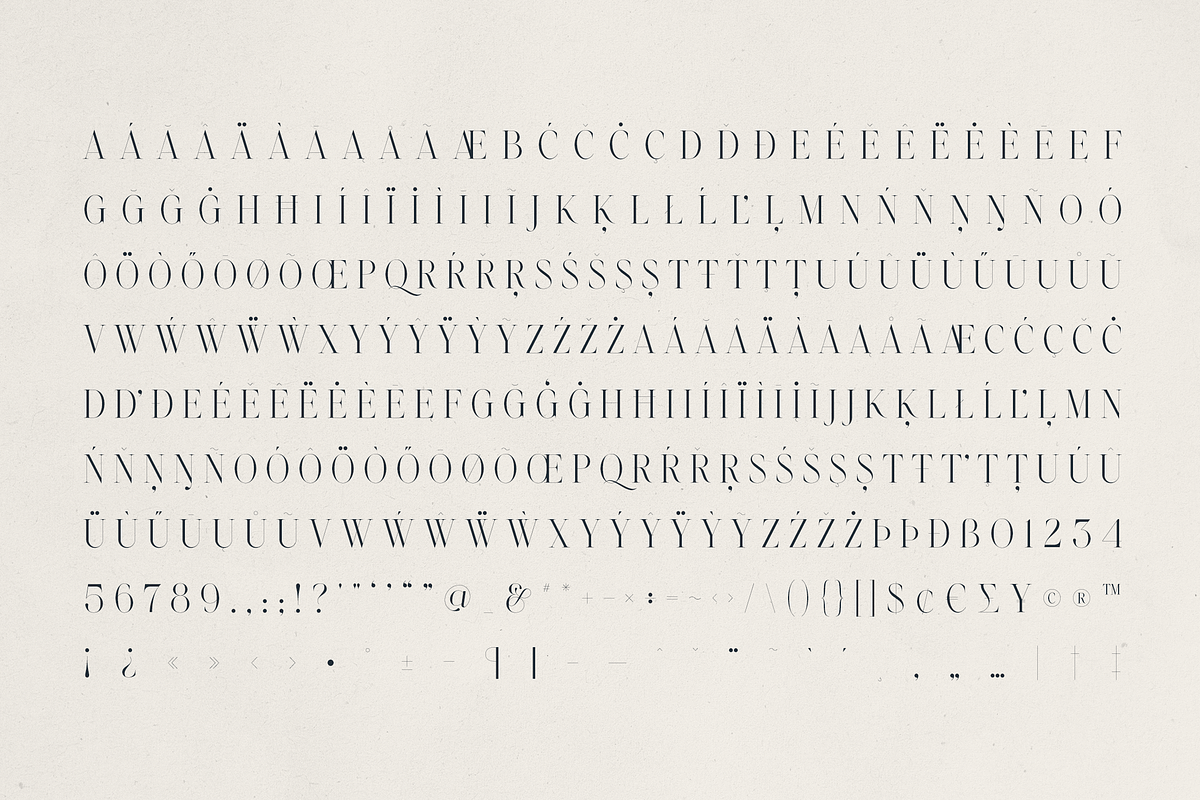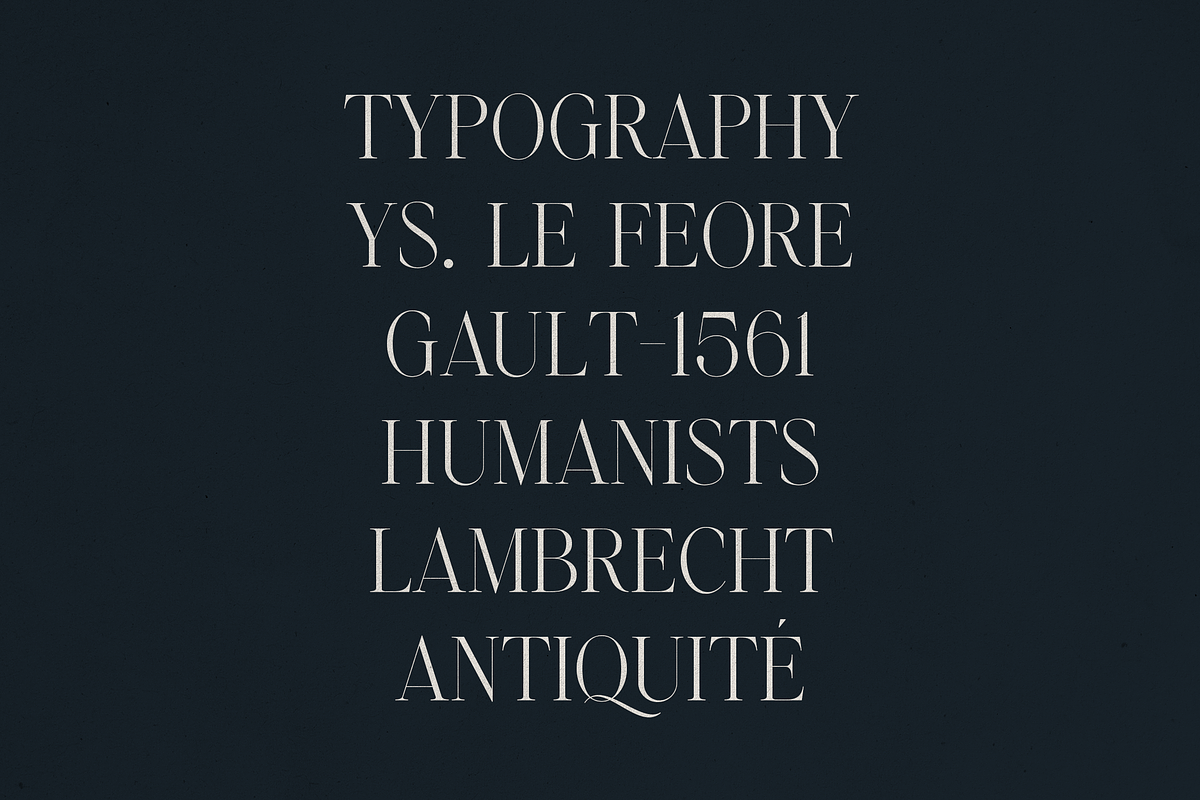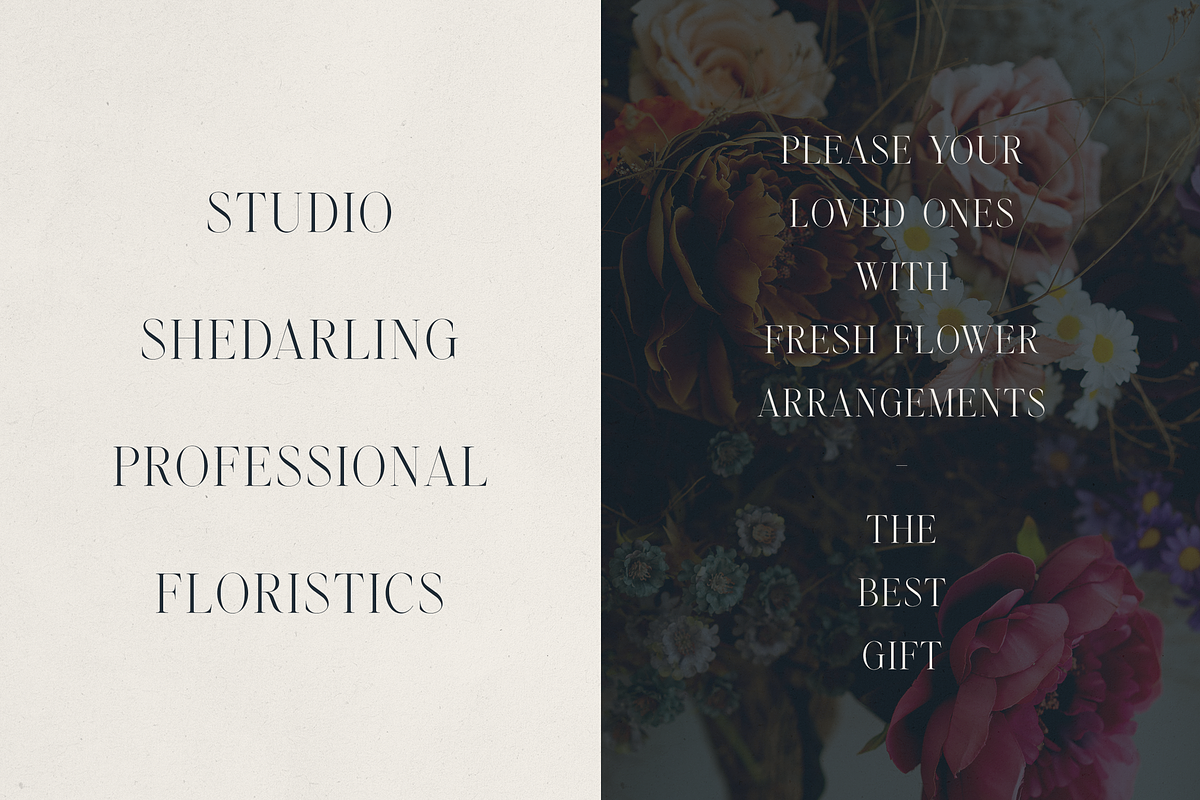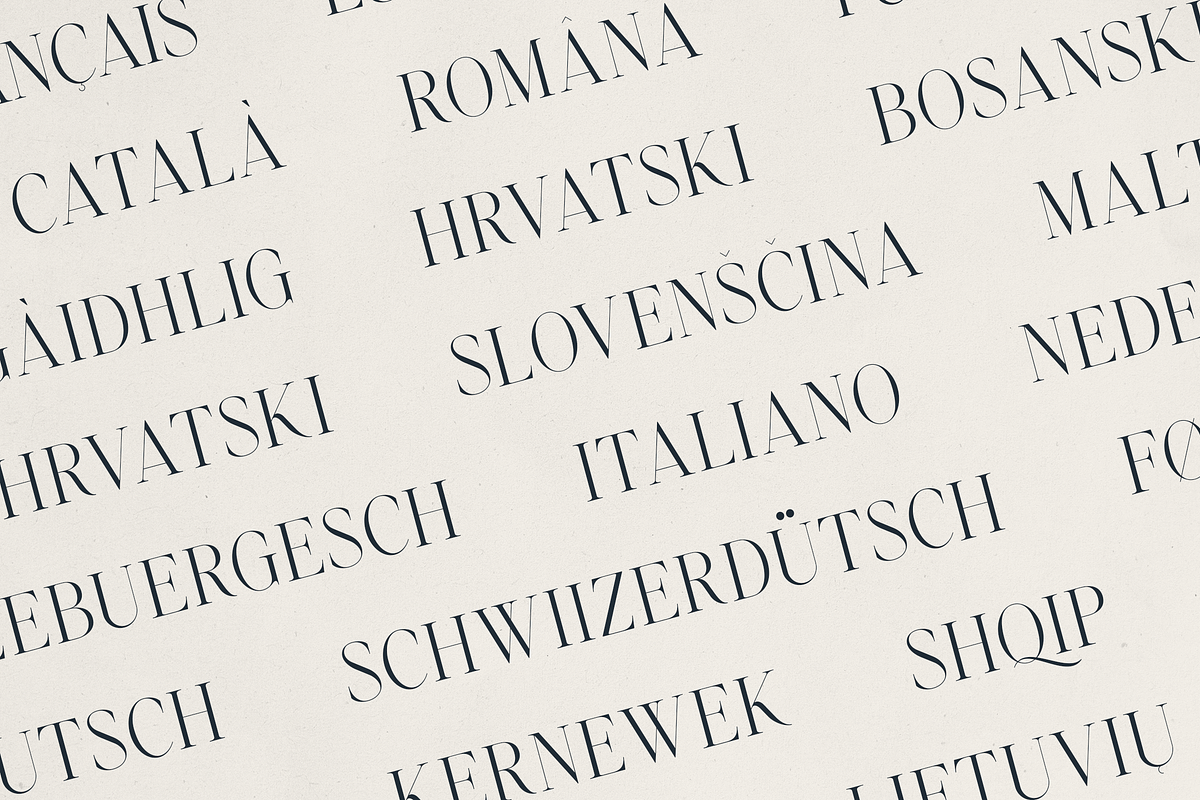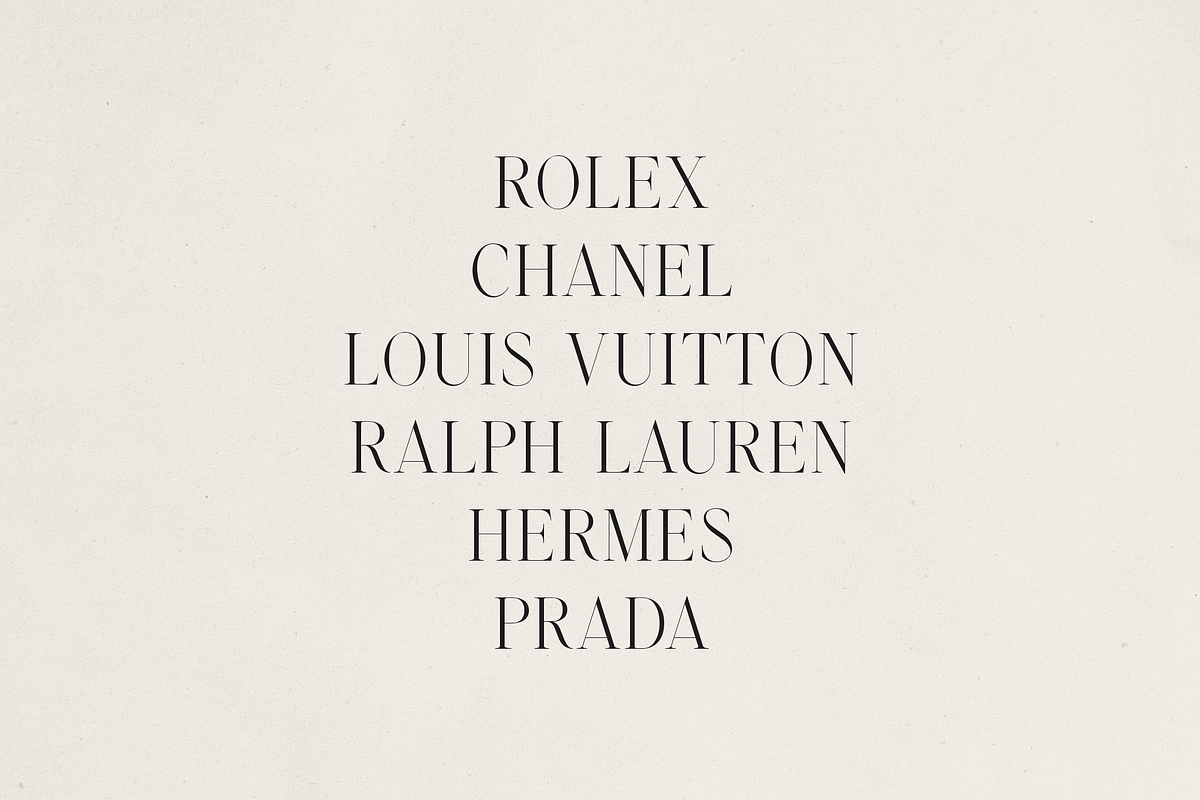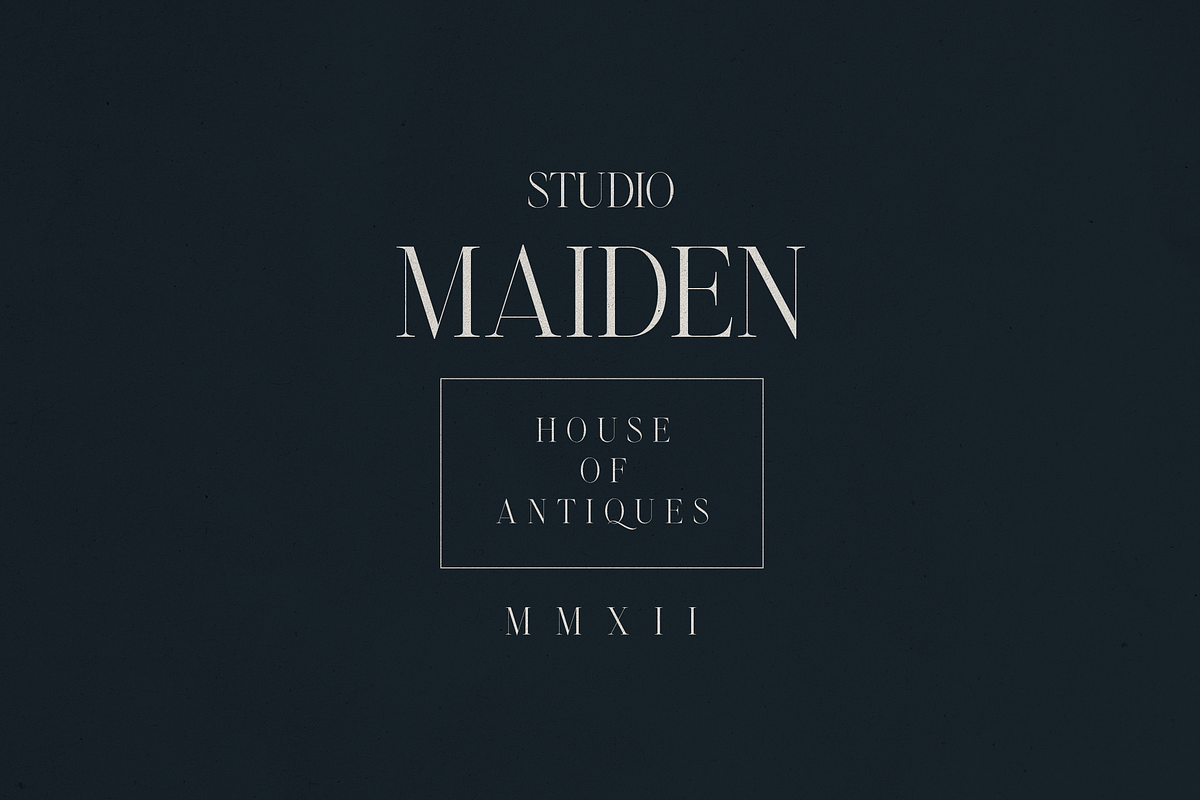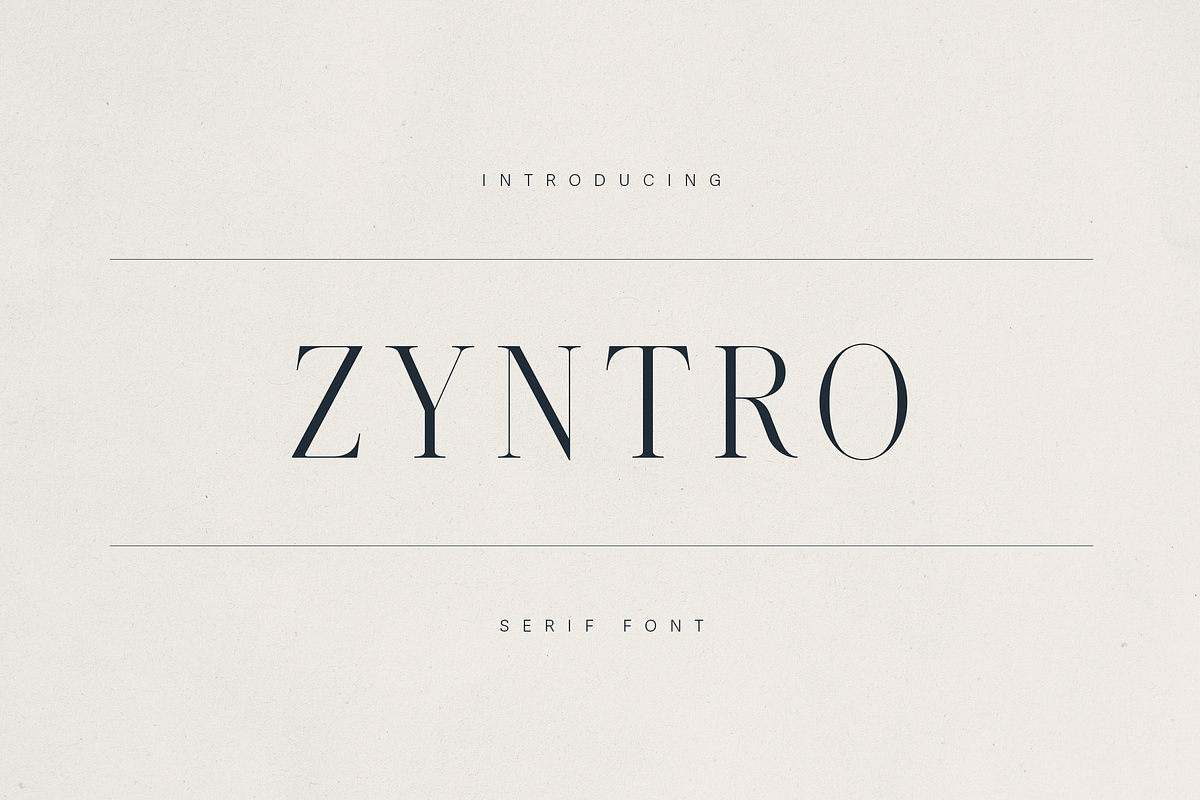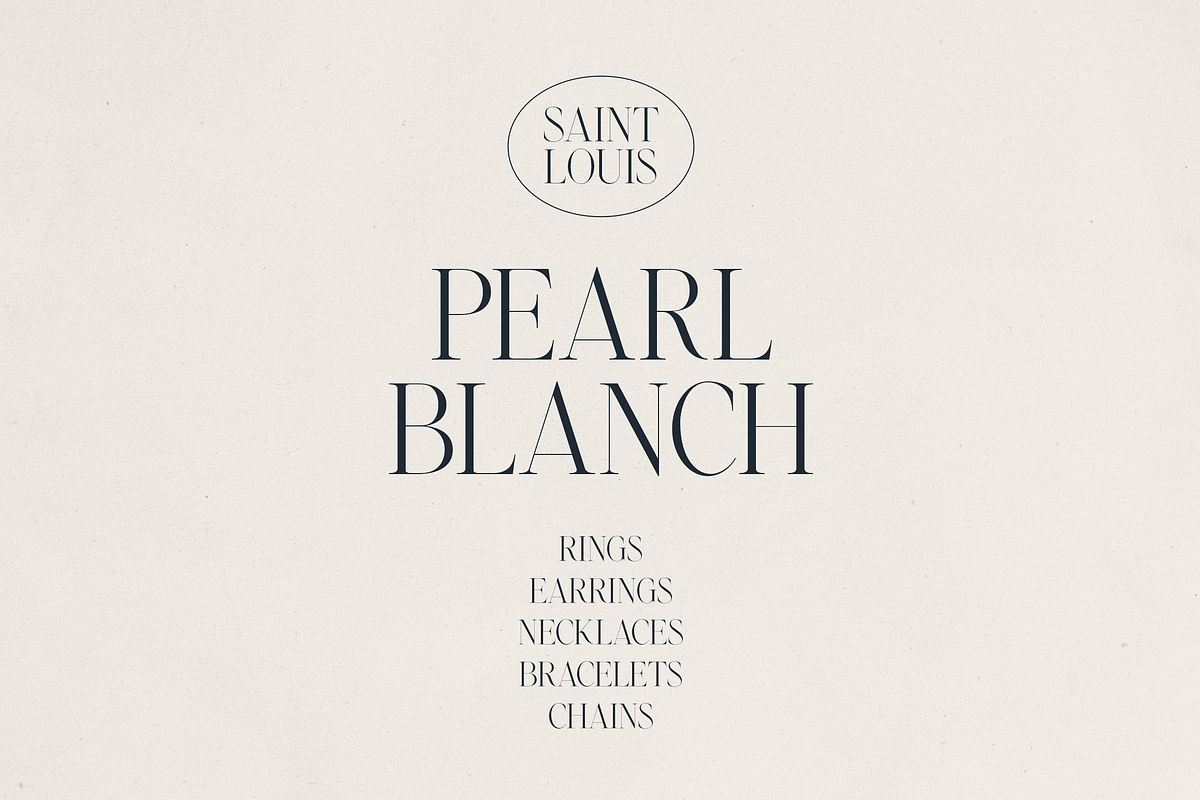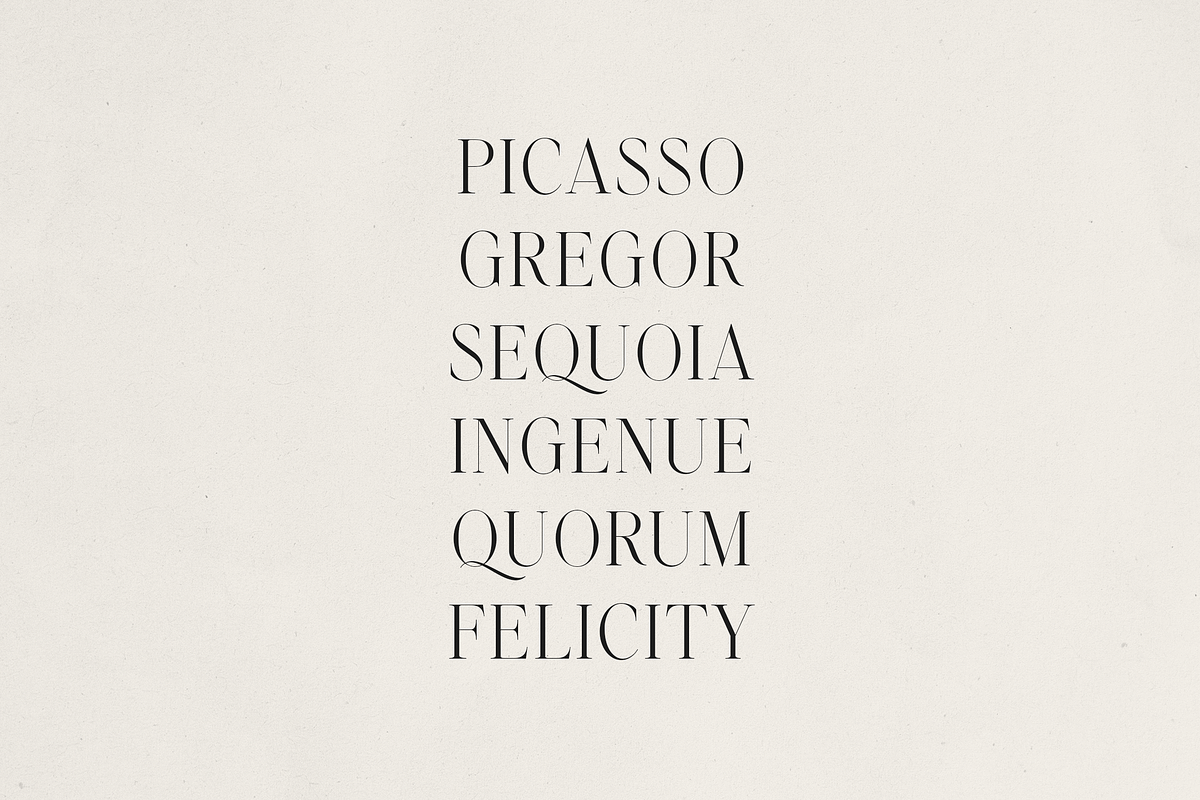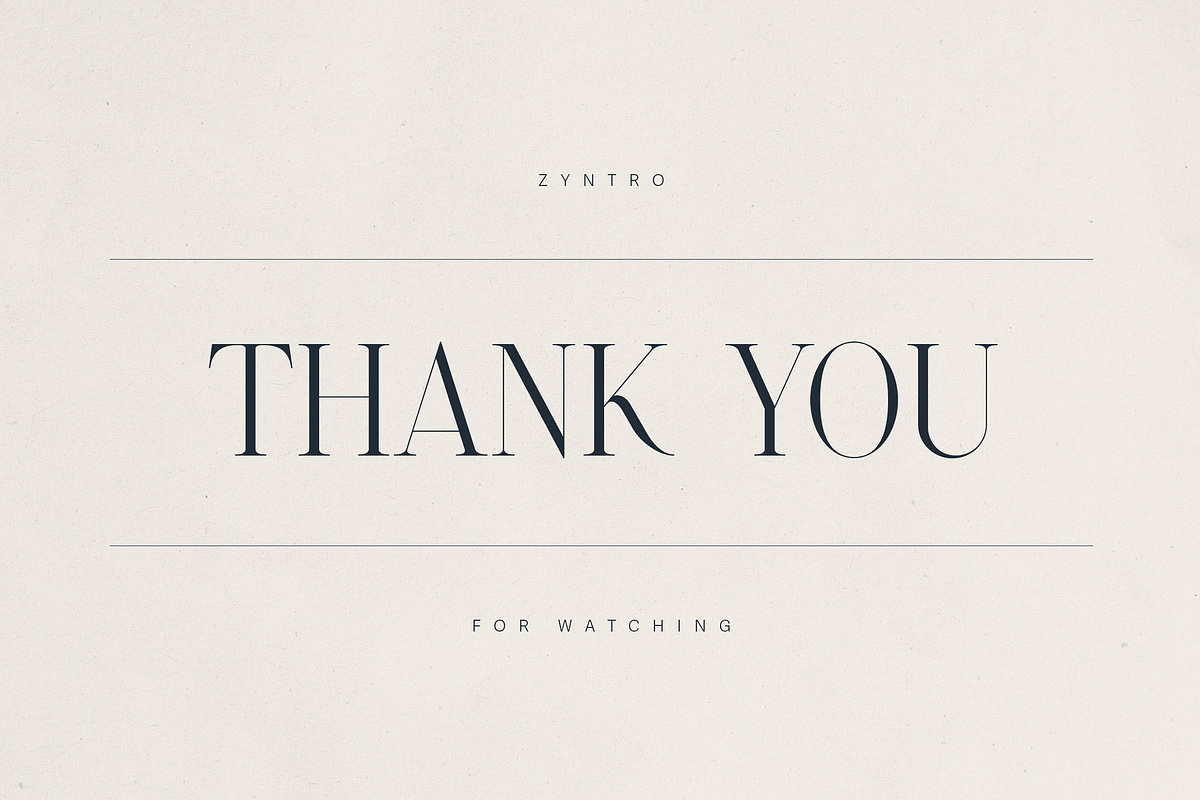
Zyntro – Elegant High-Contrast Serif
Zyntro – Elegant High-Contrast Serif Font for Timeless Branding
Zyntro is a refined and sophisticated serif font designed for premium branding, editorial design, and elegant packaging. With its high contrast strokes, delicate serifs, and timeless Roman-inspired structure, Zyntro exudes a sense of modern luxury and classic charm. Ideal for fashion labels, upscale product packaging, magazines, and boutique logos, this typeface creates a lasting impression.
Zyntro supports over 80 languages and includes a full set of characters, numerals and punctuation— making it perfect for multilingual design projects.
- Luxury branding and logos
- Editorial headlines and magazine spreads
- Wedding invitations and stationery
- Fashion lookbooks and product packaging
- Art galleries, perfumes, and fine jewelry brands
- Elegant high-contrast serif style
- Multilingual support (87+ languages)
- Suitable for both print and digital
Make a statement with Zyntro – where classic elegance meets modern design.